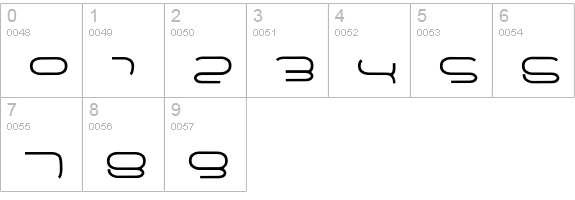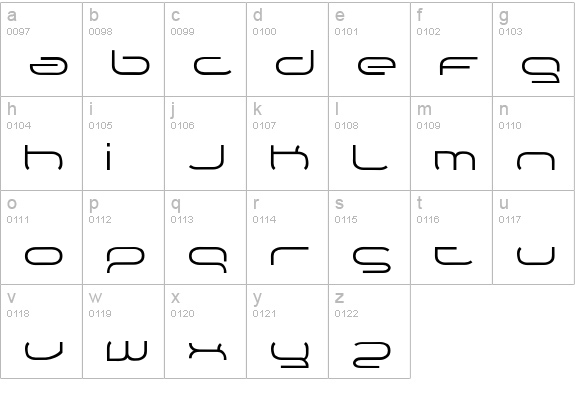
Metamorfozereguler Font Details
Metamorfozereguler is a stunning and versatile font that effortlessly combines elegance with modernity. With its sleek lines and dynamic curves, this font is perfect for a wide range of design projects, from branding to editorial design. The sophisticated yet approachable aesthetic of Metamorfozereguler makes it a standout choice for anyone looking to add a touch of sophistication to their work. What sets Metamorfozereguler apart is not just its striking design, but also the fact that it is available for free download at FontsMarket.com. This means that you can easily access and use this beautiful font in your projects without any cost. Whether you're a seasoned designer looking for a fresh typeface or a newcomer to the world of design, Metamorfozereguler is sure to impress with its timeless appeal and effortless charm. Download it today and elevate your designs with this exceptional font.